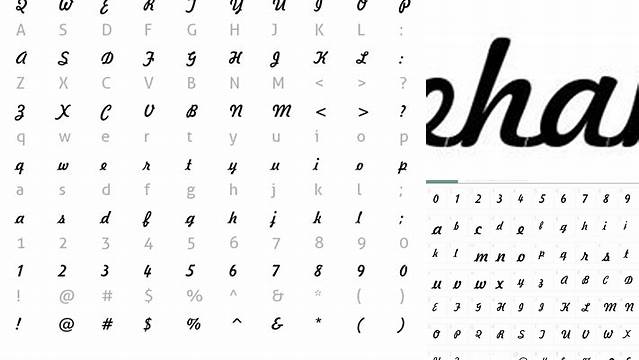
Hey guys! Looking for that perfect font to add a touch of personality to your designs? Well, you've come to the right place! Let's dive into the world of Freehand 521 Regular, a font that's as unique as it is versatile. This font is great, and it is essential to make sure that you are taking all the right steps so that you can find the right fit for it.
1. What is Freehand 521 Regular?
Freehand 521 Regular is more than just a font; it's a statement. This typeface boasts a distinctive, hand-drawn aesthetic that can instantly inject a personal and approachable feel into your projects. Imagine a font that looks like it was carefully crafted by hand, giving your designs a touch of authenticity and warmth. That's Freehand 521 Regular in a nutshell! Its flowing lines and slightly imperfect edges give it a unique charm that sets it apart from standard, sterile fonts. This makes it an excellent choice for designs that aim to connect with audiences on a more personal level. Think about using it for invitations, branding materials, or even website headers where you want to convey a sense of friendliness and creativity. The beauty of Freehand 521 Regular lies in its ability to bridge the gap between digital precision and human touch, making it a valuable asset in any designer's toolkit. It is the kind of font that can take your work to the next level, so why not give it a try today?
2. Key Features of Freehand 521 Regular
What makes Freehand 521 Regular stand out from the crowd? Let's break down some of its key features. First and foremost, its hand-drawn style is the star of the show. The irregular lines and gentle curves give it a natural, organic feel that's hard to replicate with other fonts. It's got that perfectly imperfect quality that makes designs feel inviting and approachable. Another great feature is its legibility. Despite its unique style, Freehand 521 Regular remains surprisingly easy to read, even in smaller sizes. This makes it a versatile choice for a wide range of applications, from body text to headlines. The font also boasts a full character set, including uppercase and lowercase letters, numbers, punctuation, and symbols. This gives you plenty of flexibility to use it in different contexts and languages. Plus, it's available in a regular weight, which is ideal for most design needs. However, it is good to find out what the specifics are of what you want to use it for. Knowing this will give you a good idea as to whether it can work in the ways that you need it to, and if it is right for your specific project.
5. Personal Use of Freehand 521 Regular
For personal projects, Freehand 521 Regular is an excellent choice, offering a unique and stylish touch to your creative endeavors. Whether you're designing invitations for a party, creating personalized greeting cards, or adding a special flair to your scrapbook, this font can help your projects stand out. The relaxed, hand-drawn style of Freehand 521 Regular brings a sense of warmth and authenticity to your personal creations, making them feel more heartfelt and genuine. One of the best things about using this font for personal projects is the freedom it provides. Most free font licenses allow for personal use without any cost or restrictions, meaning you can experiment and create to your heart's content. You can use Freehand 521 Regular in a wide variety of applications, from digital designs to print materials, without worrying about commercial licensing issues. This makes it a fantastic resource for hobbyists, students, and anyone who enjoys crafting and creating in their free time. So go ahead, let your imagination run wild and see how Freehand 521 Regular can elevate your personal projects to the next level. Whether you're designing a special birthday card or creating a custom poster for your room, this font is sure to add a touch of personality and charm. And the fact that it’s free for personal use makes it even better!